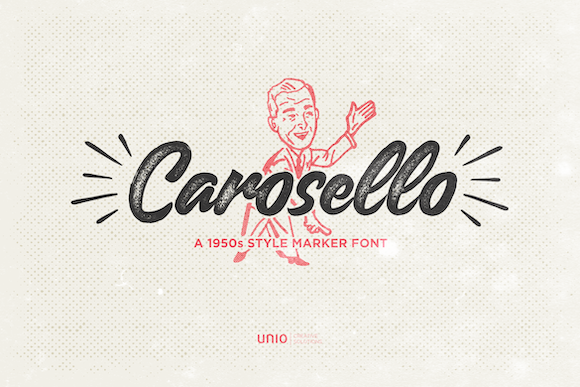
Getting Lost in the Beauty of Imperfection
Have you ever been scribbling away in a notebook, completely absorbed in the moment, and noticed how your handwriting changes depending on your mood and surroundings? Perhaps it’s more slanted when you’re feeling relaxed or more erratic when you’re in a rush. It’s these imperfections that make our handwriting so unique and human.
Designers and typographers have long been fascinated by the quirks of handwritten text, and this is exactly what inspired the creation of the Carosello Font. This beautiful script font is designed to capture the essence of vintage handwritten styles, complete with intentional imperfections and variations. By embracing these flaws, the Carosello Font adds a touch of authenticity to any design, making it a valuable tool for designers who want to create truly unique and engaging visual experiences.
Carosello Font Key Features
- Unique Characteristics: Carosello Font features a unique, hand-drawn design with a mix of geometric and organic elements, giving it a distinctive and eye-catching appearance.
- Font Styles: Carosello Font includes multiple font styles, including Regular, Italic, Bold, and Bold Italic, offering versatility for various design applications.
Carosello Font Review
As a designer, I was excited to try out the Carosello Font. Here’s my honest review:
- ✨ Unique and playful style: Carosello Font has a fun, whimsical feel that’s perfect for creative projects.
- ✨ Wide range of languages supported: This font is great for multi-lingual designs, as it supports over 200 languages.
- ✨ High-quality rendering: The font renders beautifully on various devices, from web to print.
- ⚠️ Limited character set: While the font supports a wide range of languages, it’s missing some common characters and symbols.
- ⚠️ Not ideal for body text: Carosello Font is best used for headings and titles, as it can be hard to read in large blocks of text.
- ⚠️ Not suitable for formal designs: The playful style of Carosello Font makes it better suited for creative projects, rather than formal or professional designs.
Overall, I think Carosello Font is a great choice for designers who want to add a touch of whimsy to their projects. While it has some limitations, its unique style and high-quality rendering make it a great addition to any design toolkit.
Getting the Most Out of Carosello Font
To get the most out of Carosello Font, try the following:
- Use Carosello Font in combination with other fonts to create a unique and eye-catching design.
- Pay attention to the font’s ligatures and swashes to add a touch of elegance to your design.
Carosello Font is perfect for:
- Restaurant menus and branding.
- Magazine and newspaper headlines
Alternatives to Carosello Font
Playfair Display is an elegant, high-end serif font perfect for luxurious and high-end designs. It’s ideal for use in magazine headlines, advertising, and other premium materials. Compared to Carosello Font, Playfair Display has a more refined and sophisticated look, with intricate details and a wider range of font sizes.
Great Vibes is a modern, elegant script font that works well for invitations, logos, and other creative projects. It’s more playful and casual compared to Carosello Font, with a softer, more relaxed feel. Great Vibes is ideal for designs that need a touch of personality and whimsy.
Pacifico is a beautiful, elegant script font that’s perfect for travel, food, and lifestyle designs. It’s more rustic and vintage compared to Carosello Font, with a softer, more weathered look. Pacifico is ideal for designs that need a sense of adventure and relaxation.